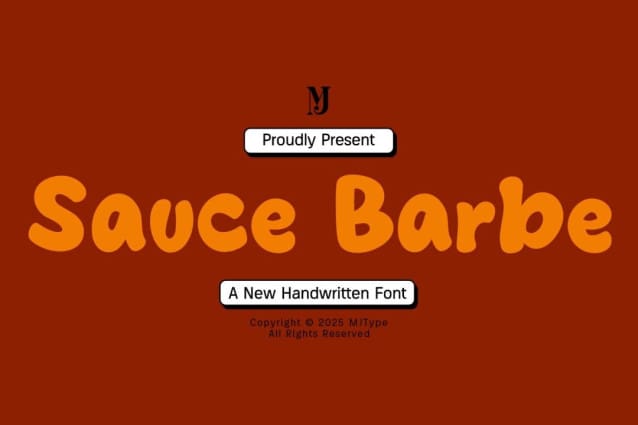
Sauce Barbe Font
Sauce Barbe Font is a chunky, comic, and cartoon display font. With its neat and joyful personality, this font will enhance any project you wish to create!